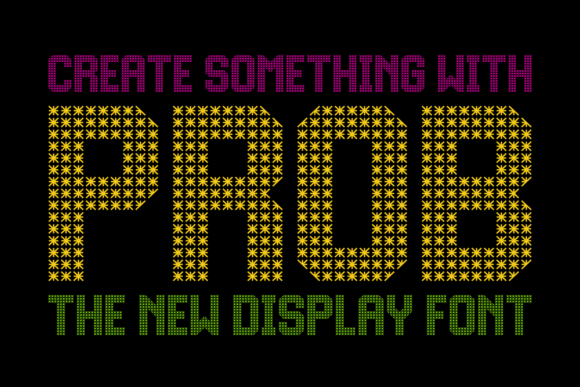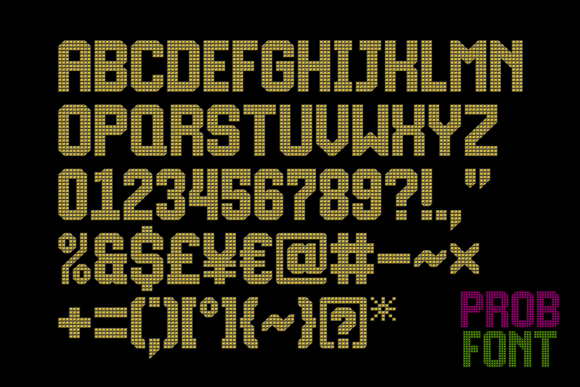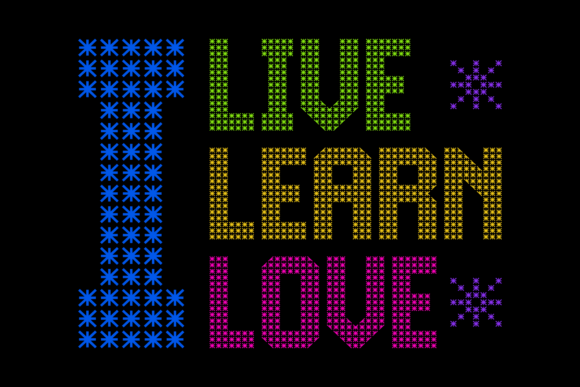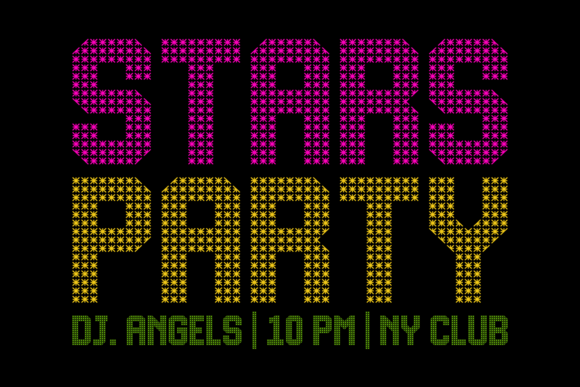
Prob Font
About the Prob Font
The Prob Font is here to transform your projects with its distinctive character and style. “Prob Font” is a captivating fusion of retro, pixel, geometric, and decorative styles, resulting in a truly unique display font. Its characters are meticulously crafted from a grid of small, star-like shapes, lending a textured and visually engaging effect. This intricate construction, combined with consistent and even spacing, ensures “PROB” remains legible despite its playful nature. The overall effect is a font that exudes retro digital charm, perfect for projects seeking to evoke a sense of nostalgia or a futuristic vibe reminiscent of the past.
With its versatility and eye-catching appeal, “PROB” is well-suited for a variety of applications. It would be right at home in video game design, digital art, graphic design projects with a retro theme, logos and branding for tech-related businesses, and event posters or flyers. Ultimately, “PROB” is a bold and distinctive typeface that injects any design with a touch of retro charisma.